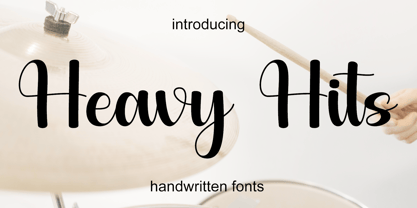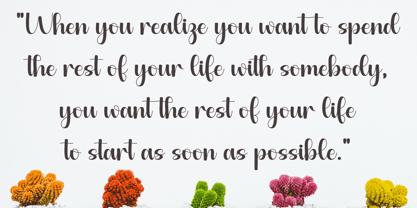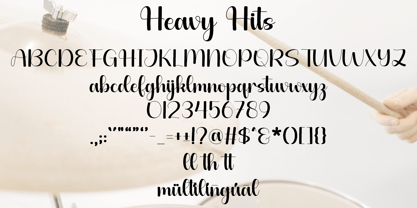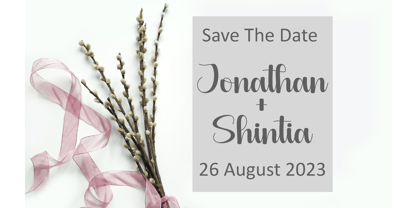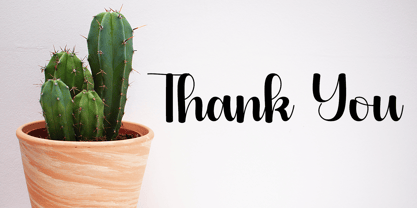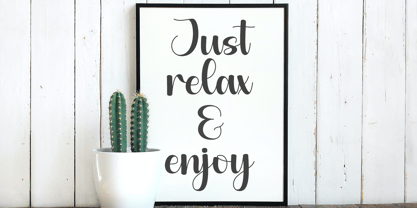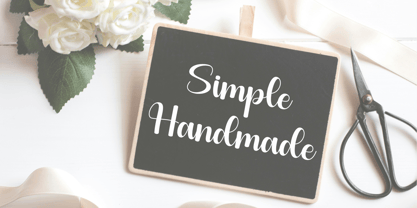
Heavy Hits
by Hardiboy Design
The Heavy Hits Font Family was designed by Hardiman Siswanto and published by Hardiboy Design. Heavy Hits contains 1 styles.
Heavy Hits is a delicate, cute, and stylish handwritten font, suitable for a wide spectrum of applications. From greeting cards to headlines, wedding themes, Christmas, birthdays, quotes, stickers, or just overlays on images, this font will definitely elevate any creation.
Designers: Hardiman Siswanto
Publisher: Hardiboy Design
Foundry: Hardiboy Design
Design Owner: Hardiboy Design